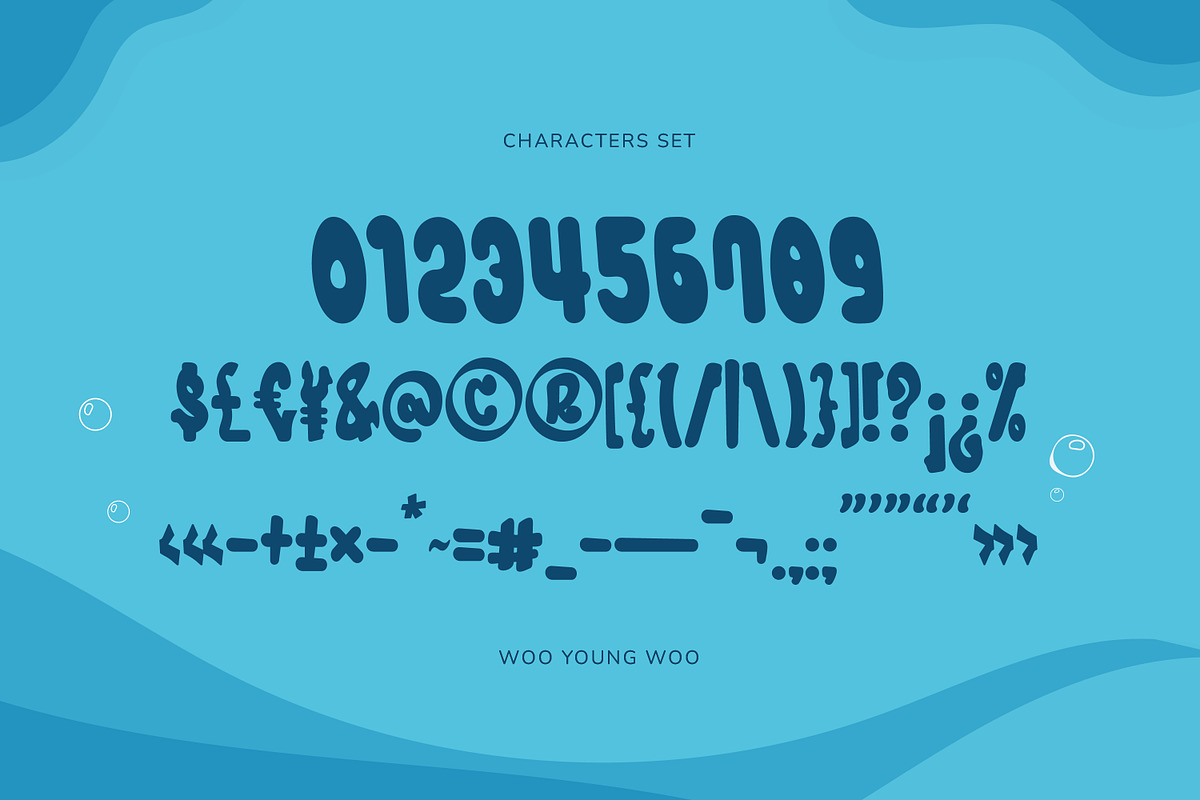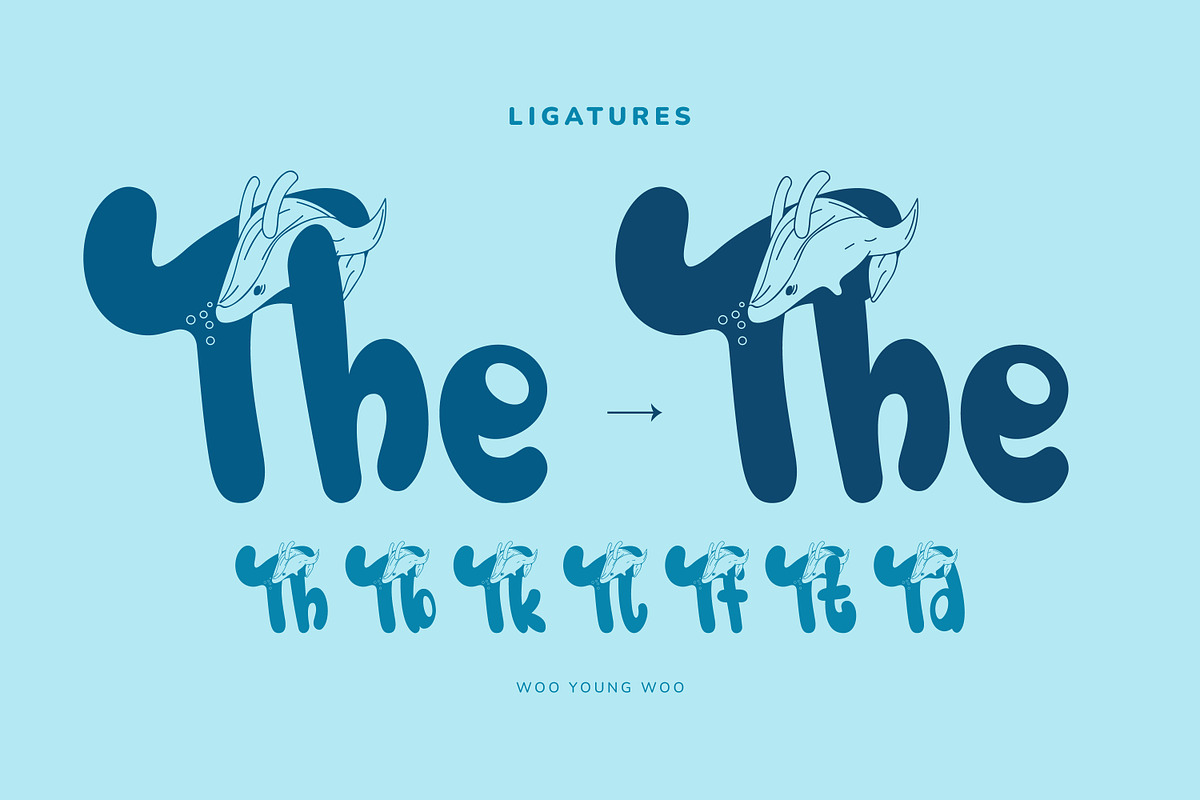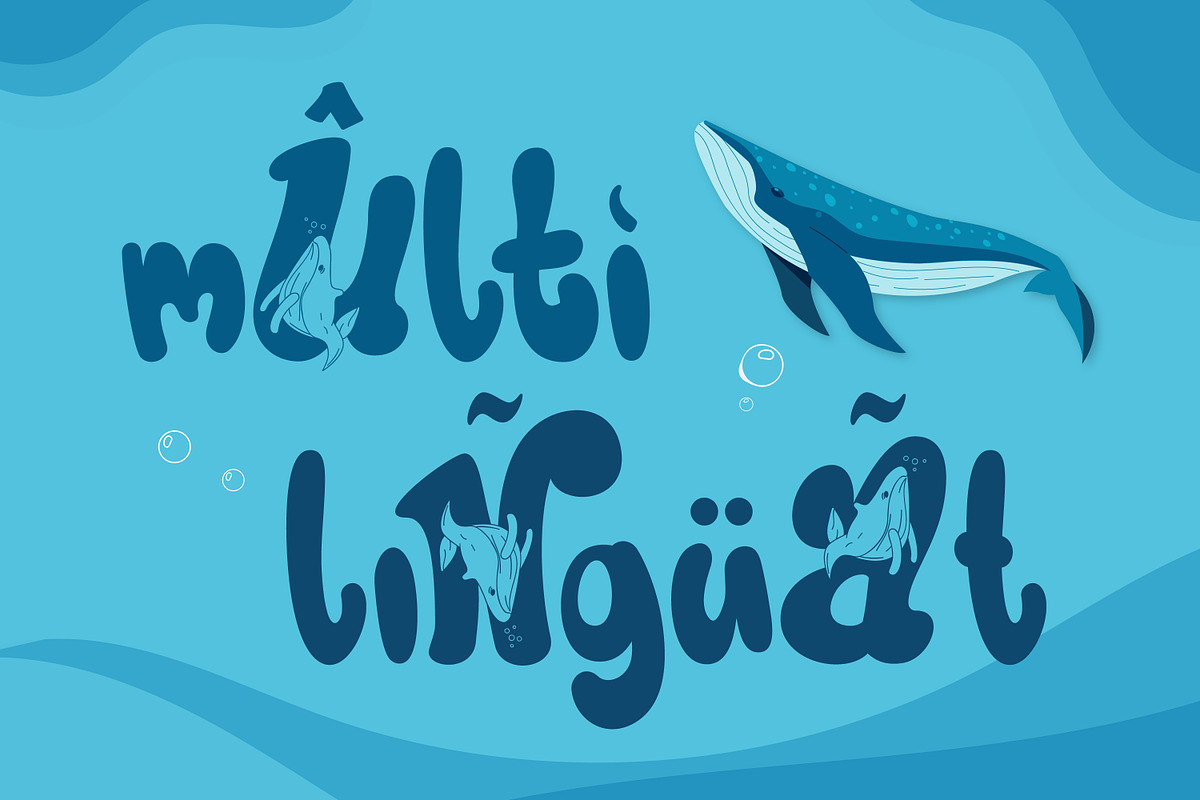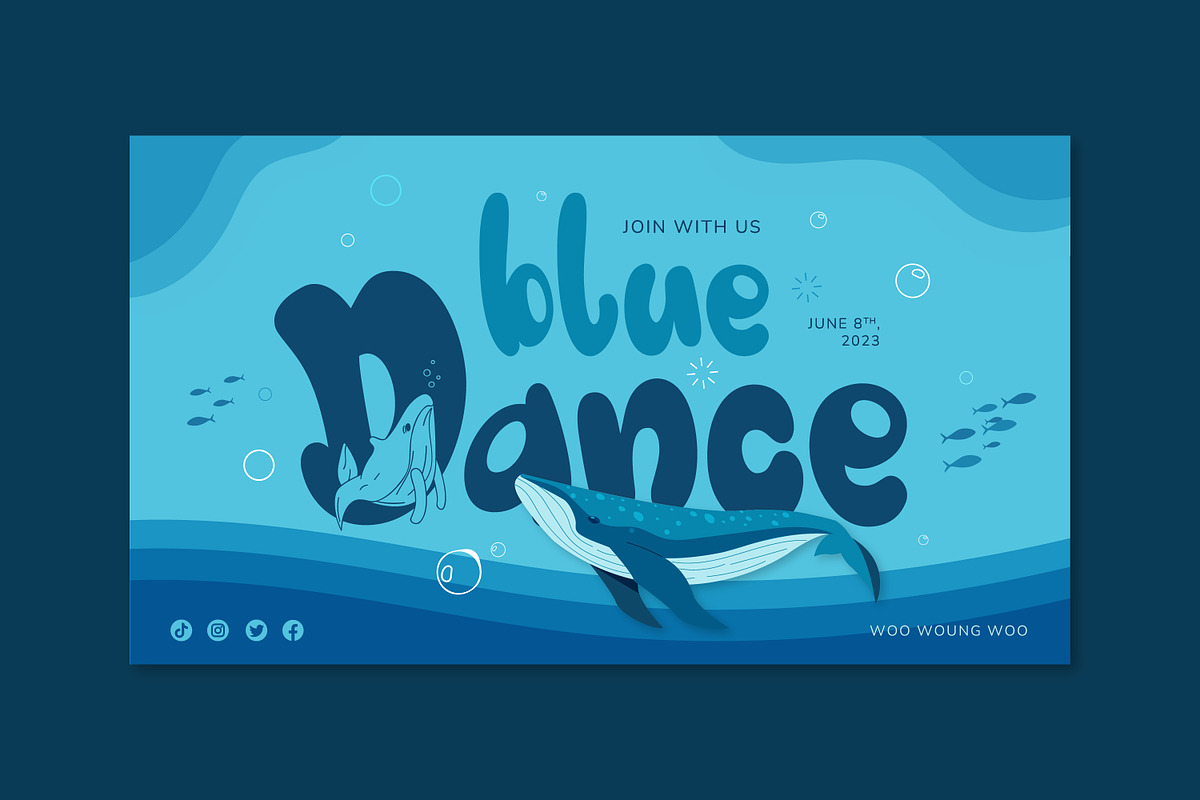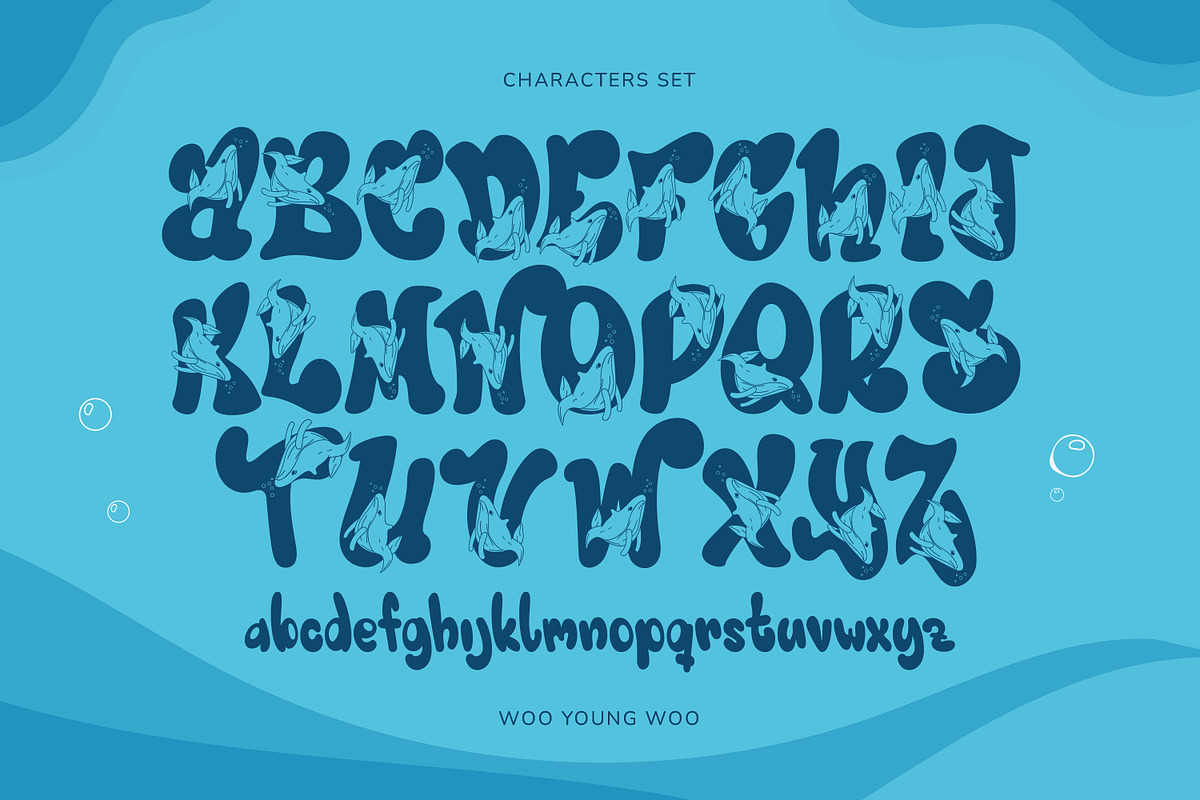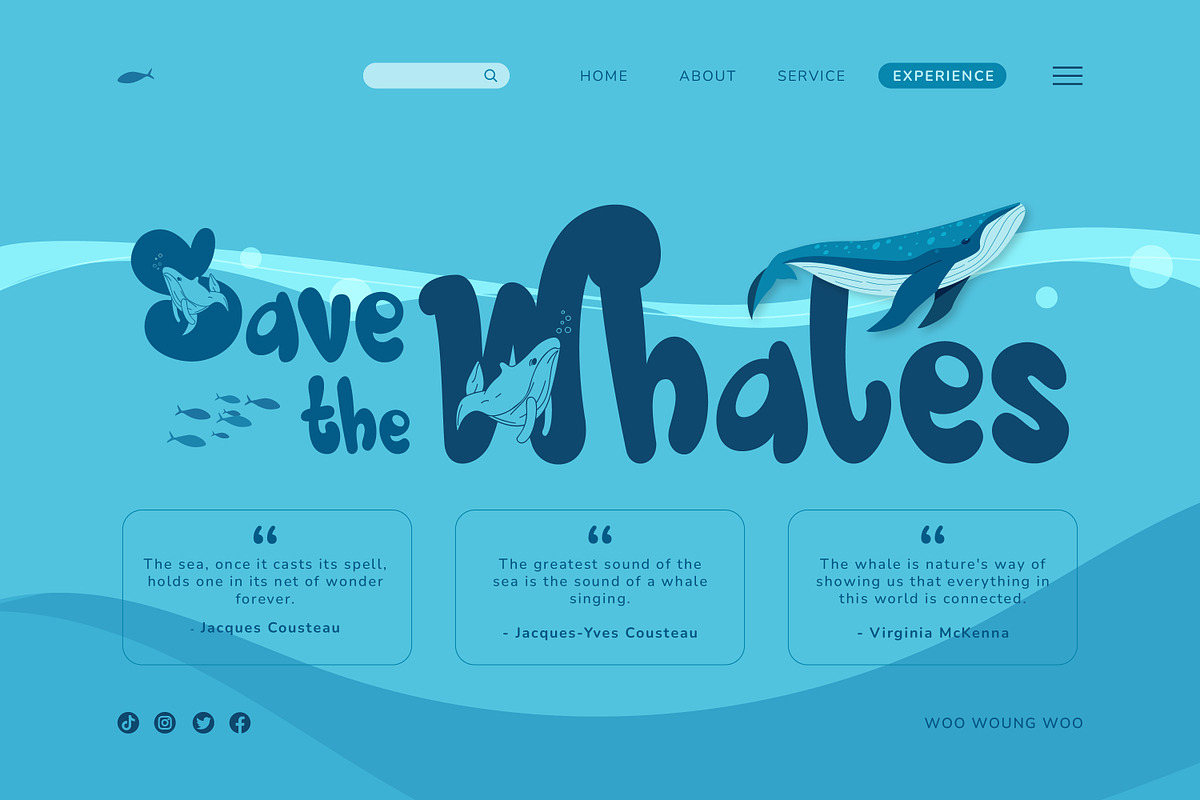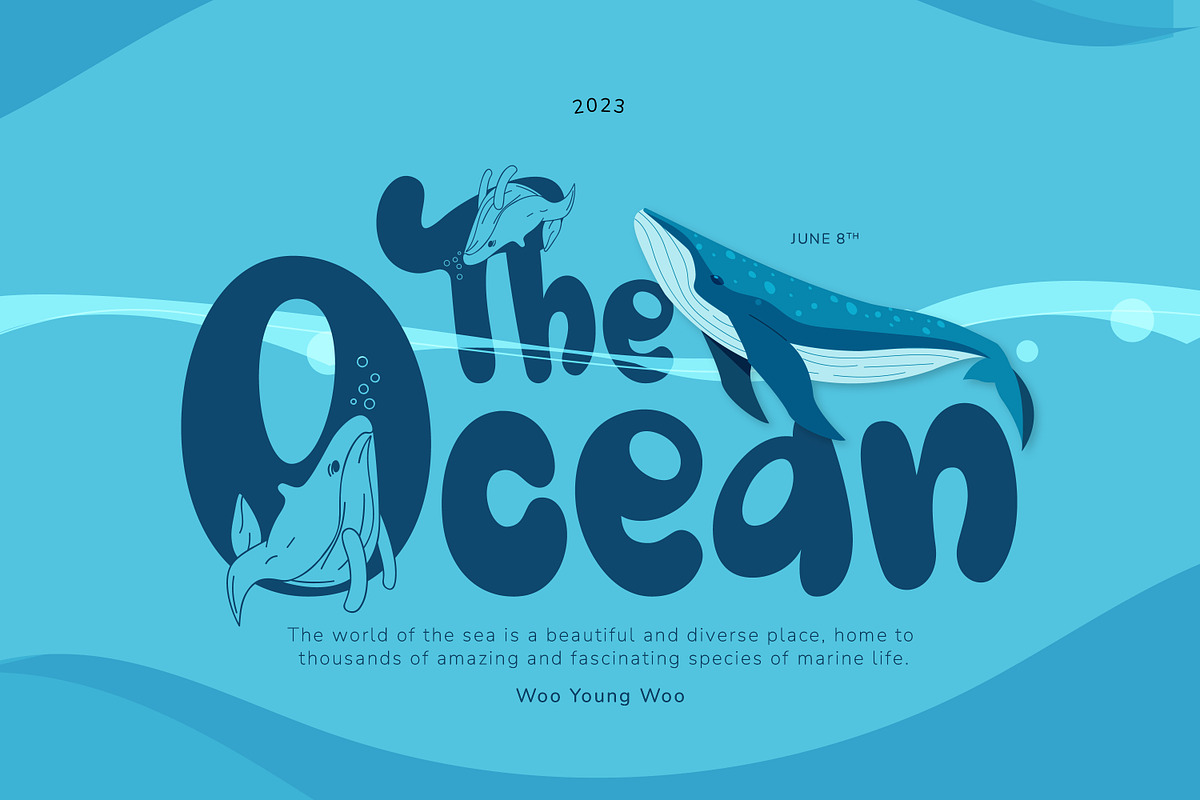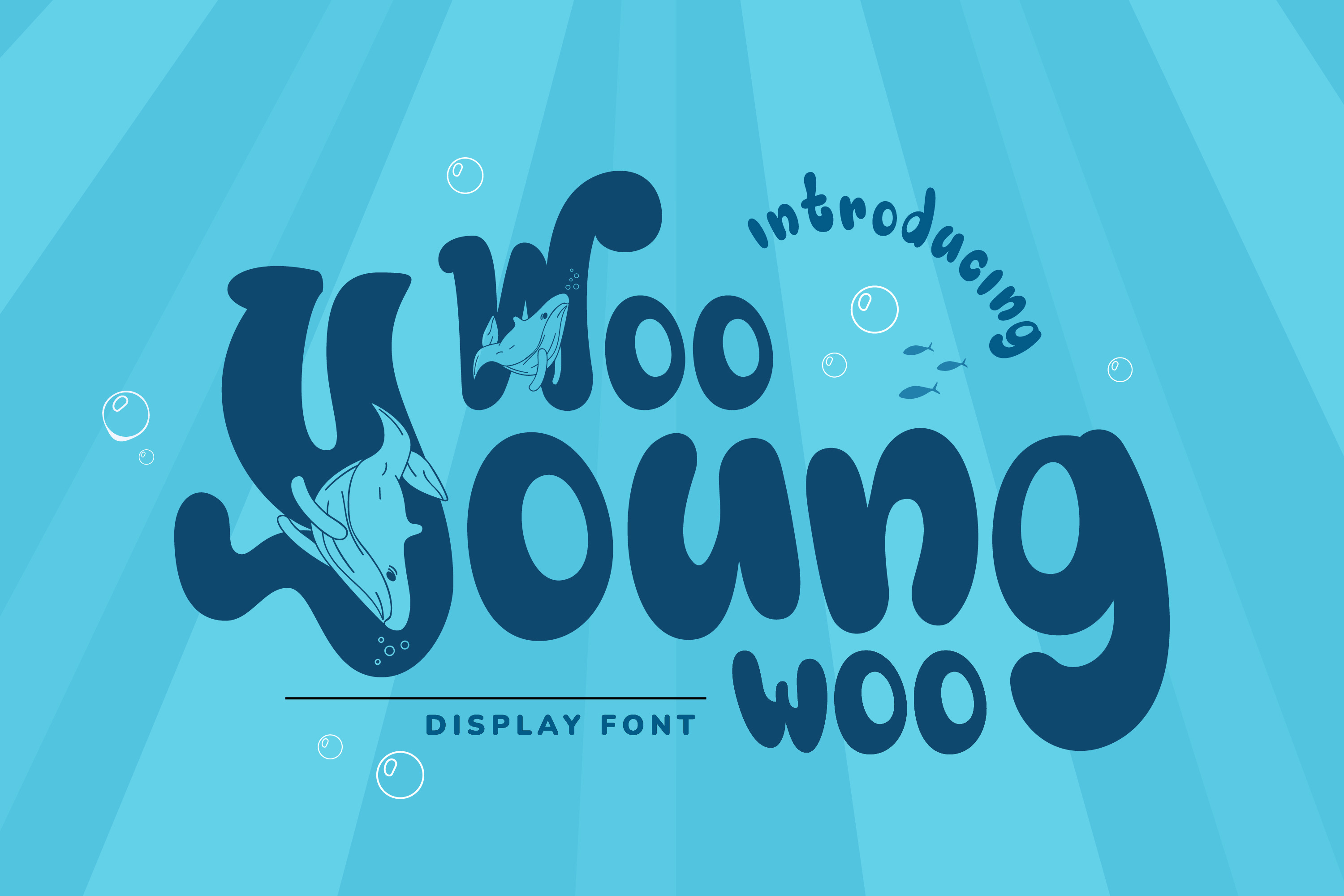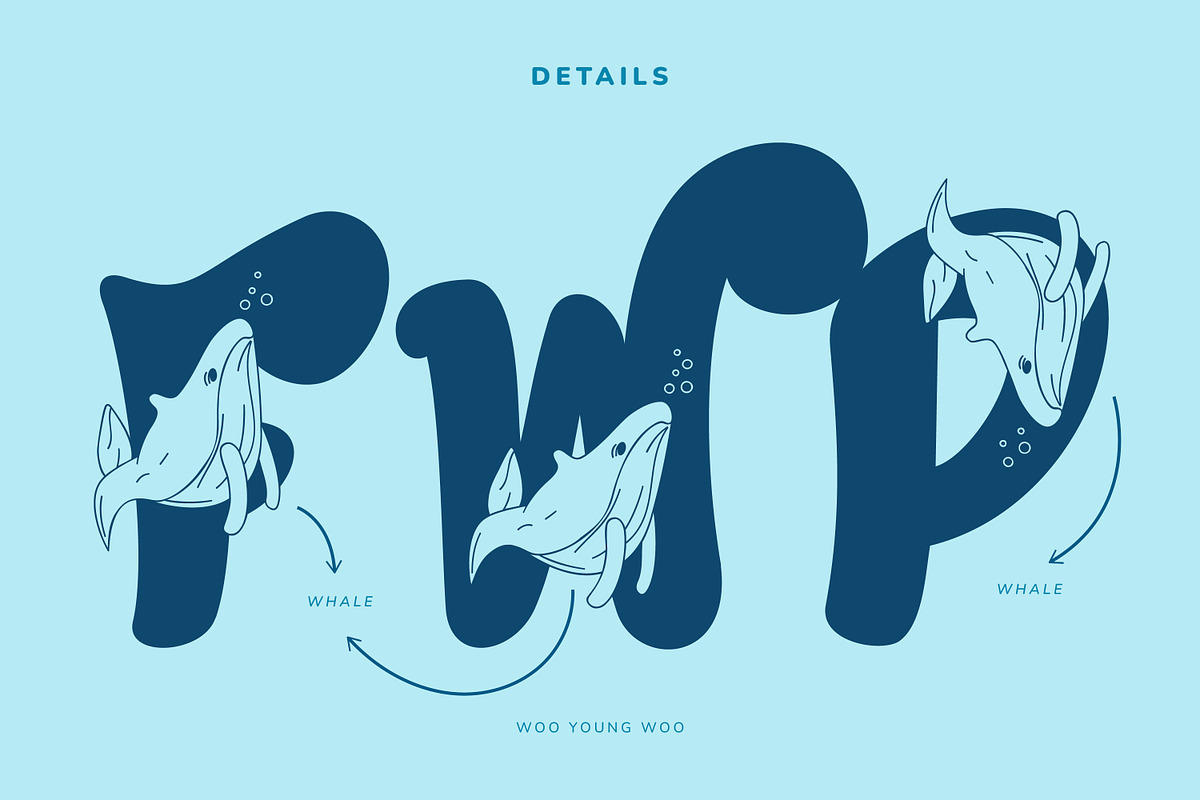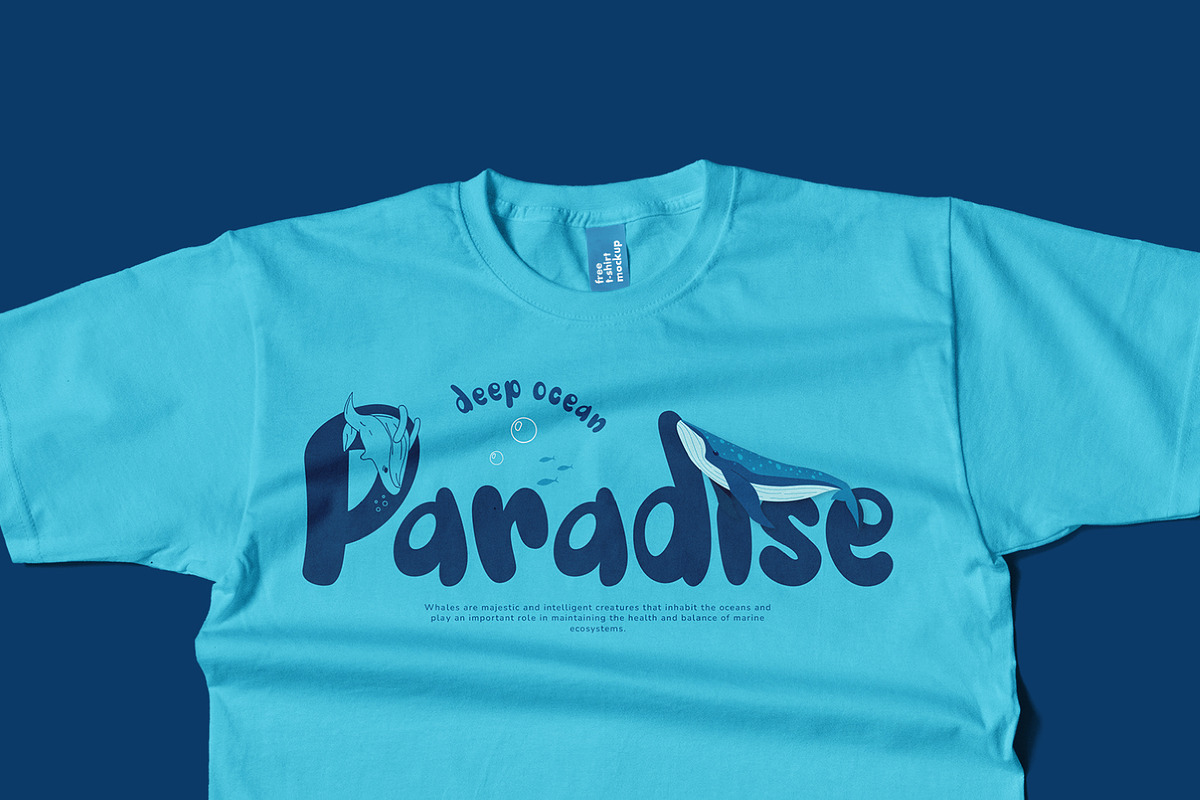
Woo Young Woo Font
Woo Young Woo is a powerful, and impossible-to-ignore display font. Its chunky and robust letters demand attention and make a statement, while its carefully crafted details add a touch of sophistication. Ideal for headlines, posters, and any project that requires a commanding presence, this font is a true standout.